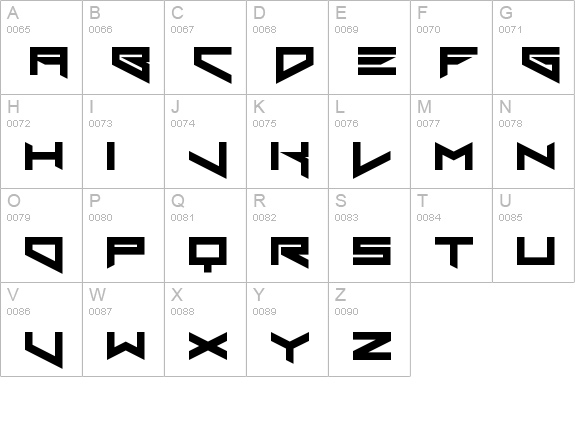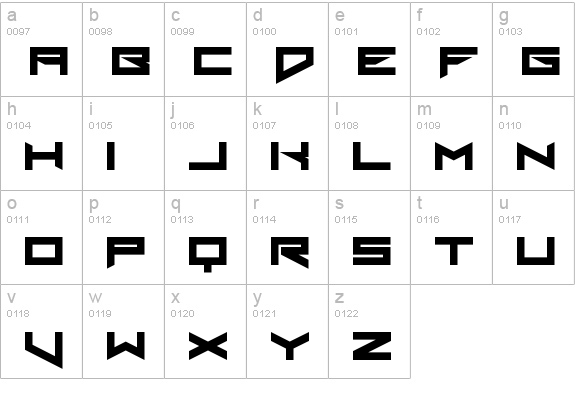
Xero's Theorem Regular is the standard, neutral variant in the Xero's typeface family \xE2\x80\x94 well suited to general body text, paragraphs, and standard typographic work.
Xero's Theorem Regular font is a versatile and modern typeface that exudes elegance and sophistication. With its clean lines and stylish design, this font is perfect for a wide range of projects, from branding to editorial design. Whether you're looking to create sleek logos, eye-catching headlines, or elegant invitations, Xero's Theorem Regular has got you covered. The best part? Xero's Theorem Regular font is available for free download at FontsMarket.com. This means that you can easily access this high-quality font without having to break the bank. So why wait? Elevate your designs with the timeless beauty of Xero's Theorem Regular font today!